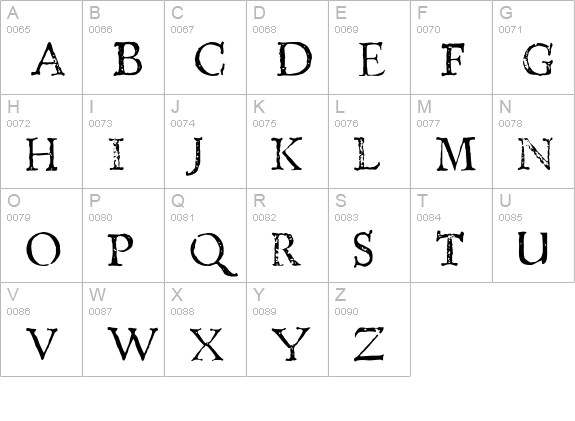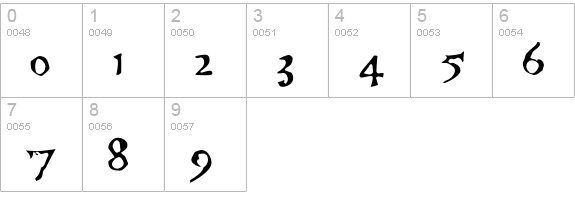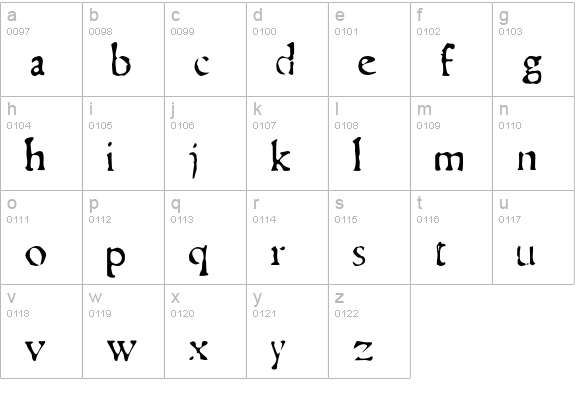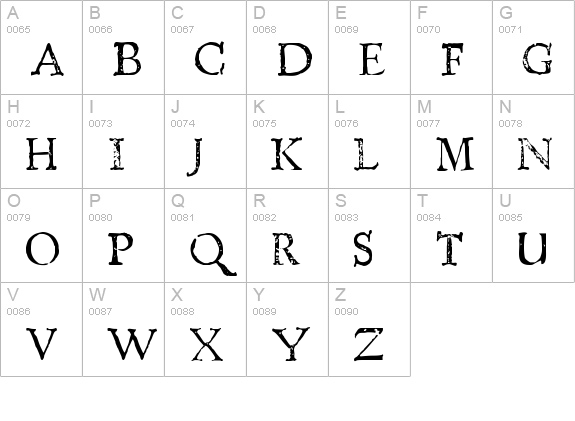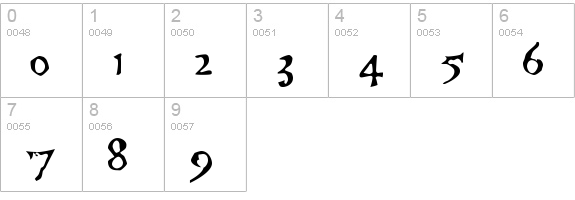
Telegdi Font Details
Telegdi font is a stunning display font that exudes elegance and sophistication. Its unique and intricate letterforms make it perfect for adding a touch of refined beauty to any design project. This font draws inspiration from classic calligraphy styles, with its gracefully curved lines and delicate strokes. The result is a typeface that effortlessly combines tradition with modernity, making it suitable for a wide range of applications, from branding and packaging to editorial design and more. One of the most appealing aspects of Telegdi font is that it is available for free. Yes, you heard that right! This exquisite font can be freely downloaded at FontsMarket.com, a reputable website for high-quality fonts. By making Telegdi font accessible to all, the creators have ensured that designers and enthusiasts alike can enjoy its beauty without any cost constraints. Whether you're looking to add a touch of sophistication to your next project or simply appreciate the beauty of well-crafted typography, Telegdi font is a perfect choice. Its timeless elegance and smooth curves are sure to captivate and inspire. Don't miss the opportunity to download this font for free at FontsMarket.com and elevate your designs to a whole new level.